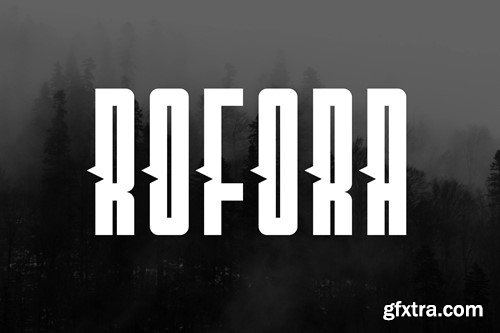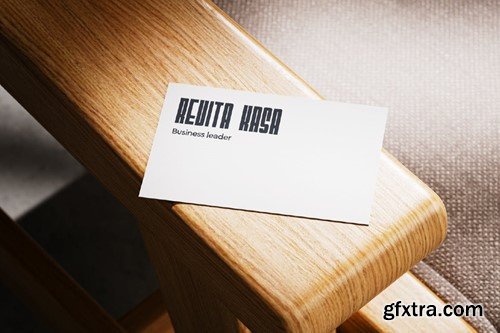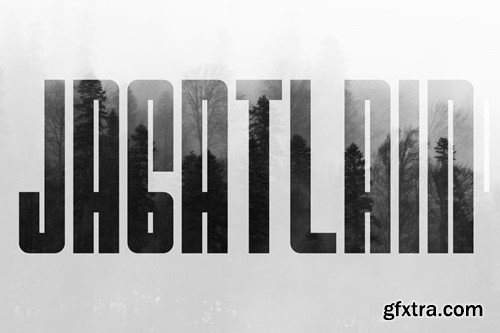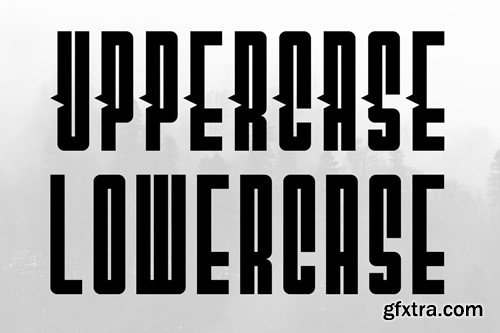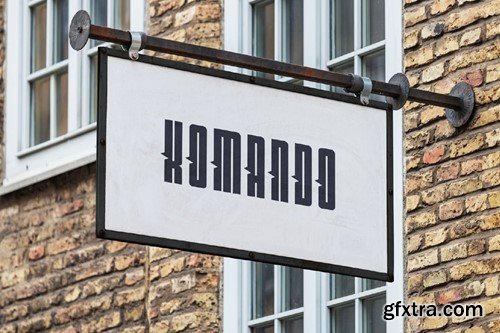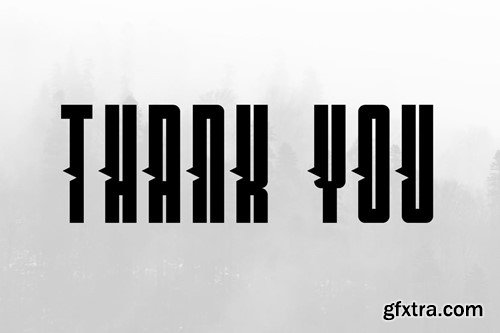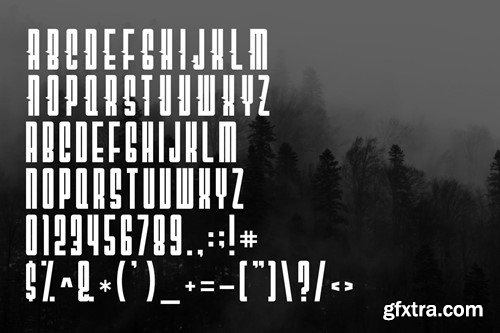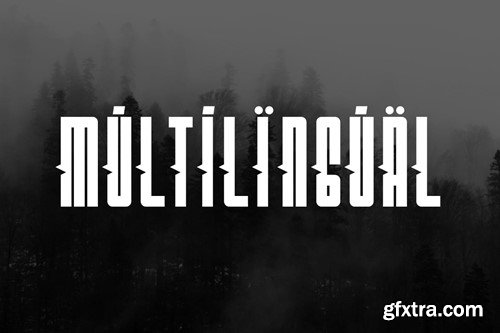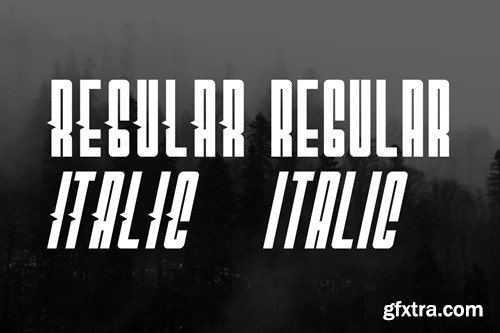
罗福拉无衬线粗体WJF2YLB
Rofora Sans Serif Condensed Font WJF2YLB
Rofora Sans Serif Condensed Font
This font is perfect for posters, social media posts, branding, personal projects, etc.